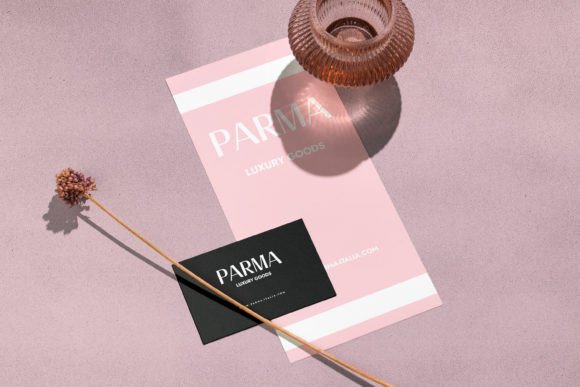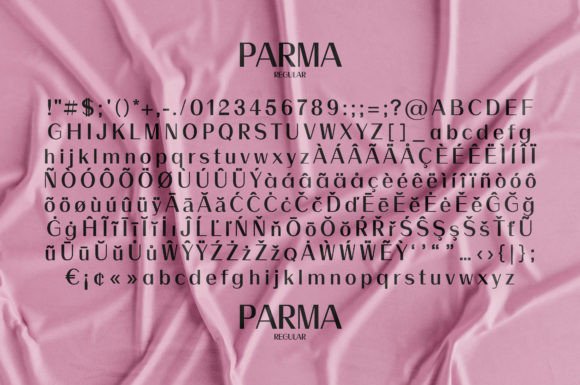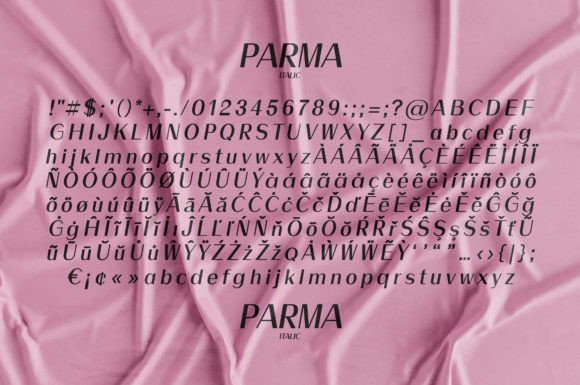
Introduction to Parma Font
Have you ever found yourself staring at a blank canvas, waiting for inspiration to strike? For designers, this moment can be both thrilling and daunting. It’s the moment when creativity takes center stage, and the right tools can make all the difference. That’s where the Parma Font comes in – a delicate, minimalistic, and elegant sans serif typeface that’s about to become your new design BFF.
As a valuable resource for designers, the Parma Font offers an unparalleled level of versatility. Whether you’re working on a packaging design, crafting a cosmetics brand identity, or creating a wedding invitation, this font is sure to impress. And the best part? It’s available for free download, making it an accessible design resource for creatives of all levels.
With its transparent background and high-quality design, the Parma Font is the perfect addition to any creative project. Say goodbye to design woes and hello to a world of possibilities with this stunning sans serif typeface.
Key Features of Parma Font
- Includes multiple font styles, including regular, bold, italic, and bold italic, to cater to different design needs.
- Designed with a clean and modern aesthetic, making it ideal for use in digital and print media.
Honest Review: Parma Font
I recently stumbled upon the Parma Font and was excited to dive in and see what it had to offer. As a designer, I’m always on the lookout for high-quality design resources to enhance my creative projects. Parma Font does not disappoint.
What works well: ✨ The Parma Font is incredibly versatile, with a sleek and modern design that works well for a wide range of applications. It’s also incredibly easy to use, with a transparent background that makes it simple to layer over other design elements. The font is also a free download, which is always a bonus for designers on a budget.
- Perfect for digital design projects, such as websites, apps, and social media graphics.
- Works well for print design projects, such as business cards, brochures, and flyers.
- Includes a wide range of characters and glyphs, making it easy to use in a variety of languages.
Limitations: ⚠️ While the Parma Font is a high-quality design resource, it may not be suitable for all design projects. The font is quite bold and modern, so it may not be the best choice for more traditional or conservative designs.
Overall, I’m really impressed with the Parma Font and would highly recommend it to any designers looking for a high-quality, free design resource. With its versatility, ease of use, and transparent background, it’s a great addition to any design toolbox.
Parma Font: A High-Quality Design Resource
Tips for Getting the Most Out of Parma Font
To get the most out of Parma Font, experiment with different font sizes, colors, and combinations. You can also use it in conjunction with other design elements, such as images and graphics, to create visually appealing designs.
Parma Font is perfect for a variety of design projects, including logos, business cards, letterheads, and marketing materials. Its high-quality design and transparent background make it a versatile resource for any creative project.